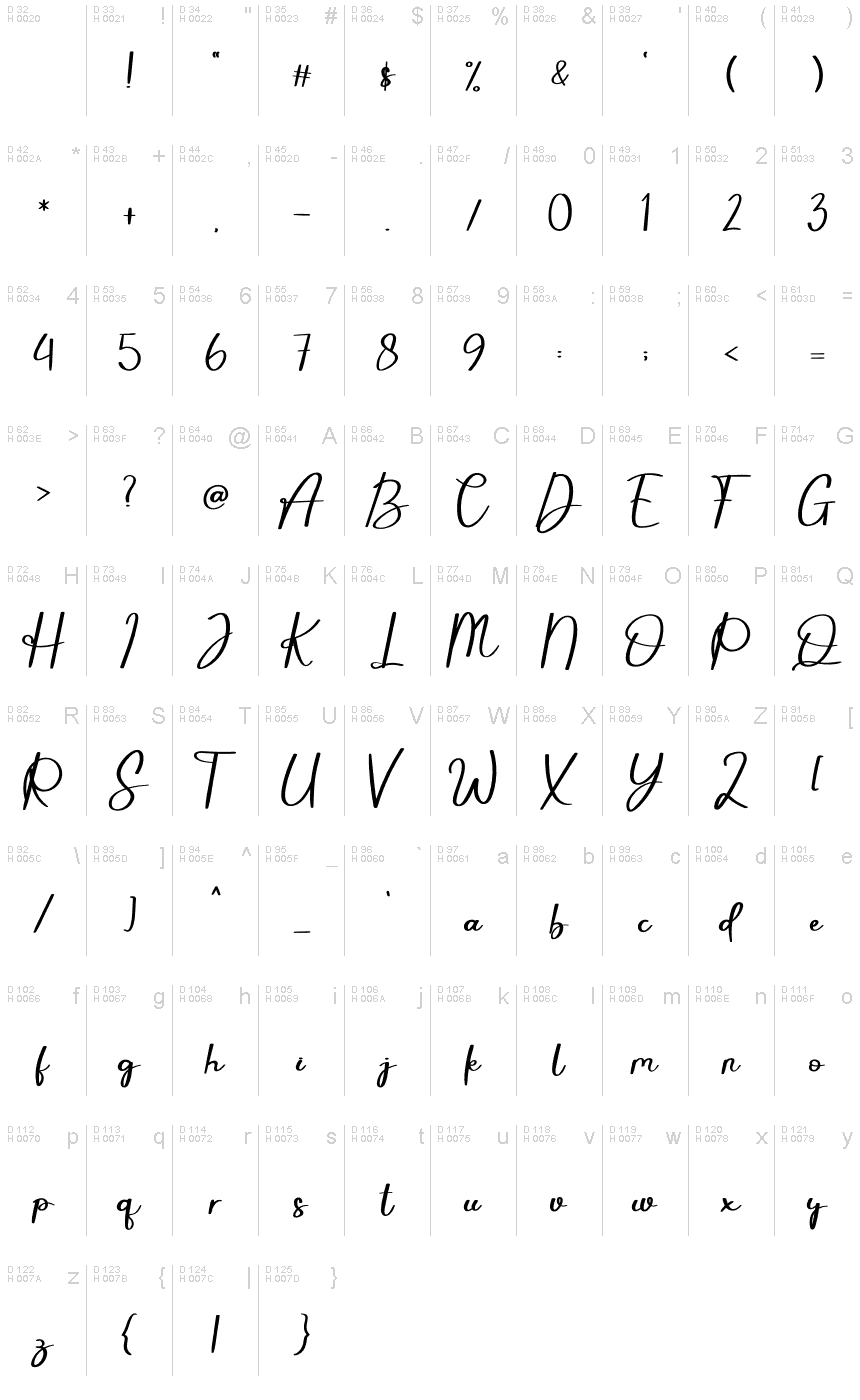
Hello Radea
Hello Radea, a captivating handwritten font designed by Etik Fatimah, exudes inspiration with its semi-light weight. Its elegant strokes and flowing curves make it perfect for a variety of creative projects.
Use it to add a touch of warmth and personalization to wedding invitations or event posters. For blog headers and social media graphics, Hello Radea brings a unique charm that enhances storytelling. Whether you're designing book covers or crafting motivational quotes, this inspiring handwritten font lends an artistic flair that captures attention effortlessly.